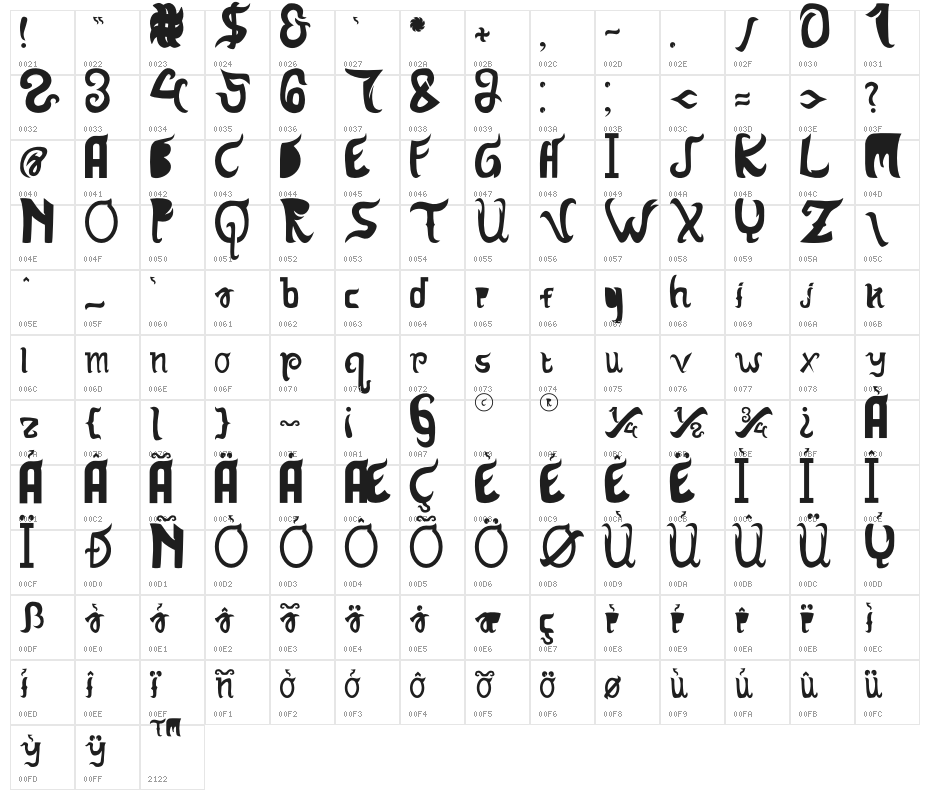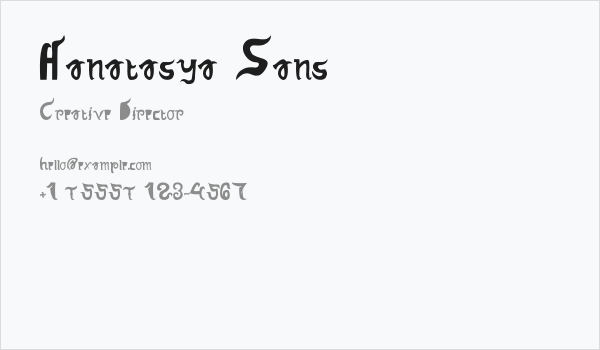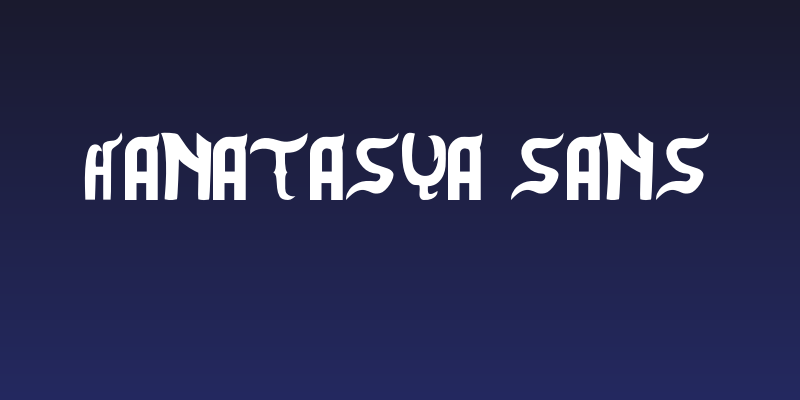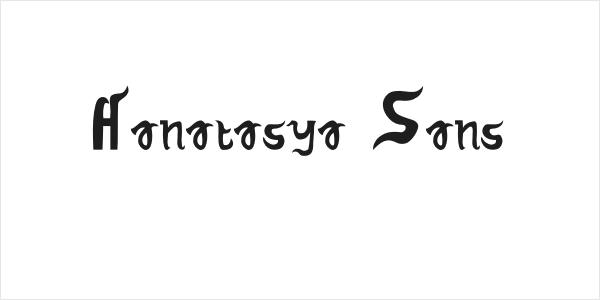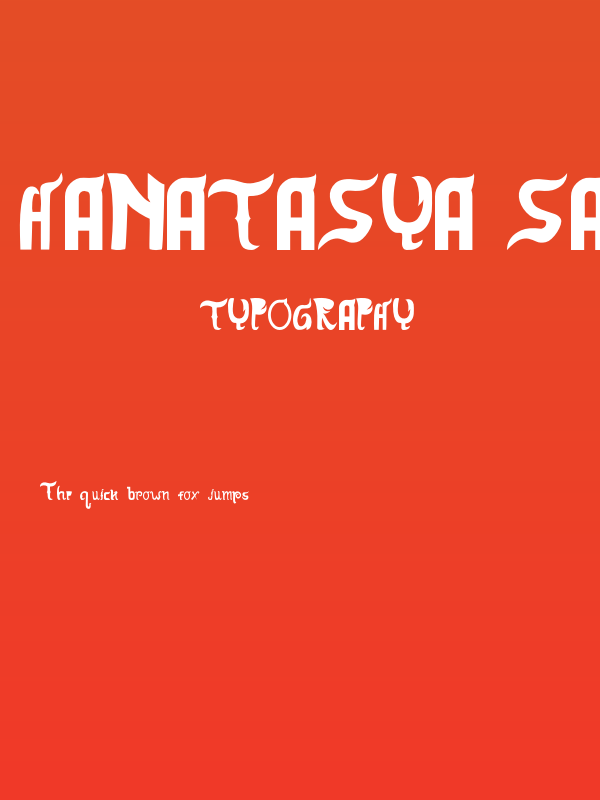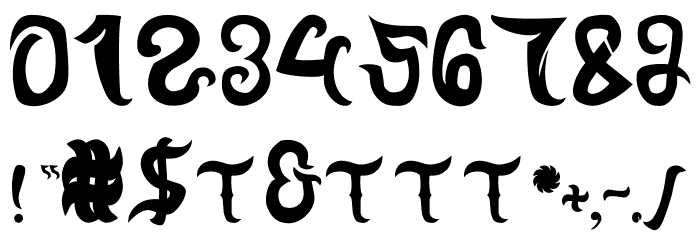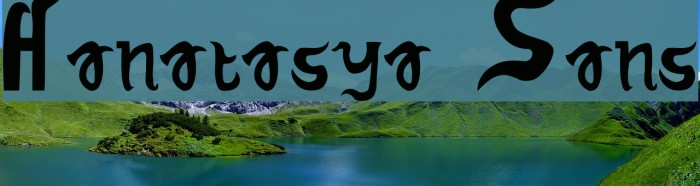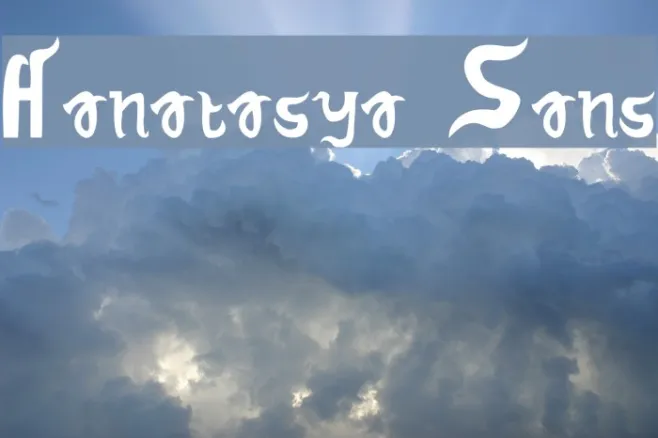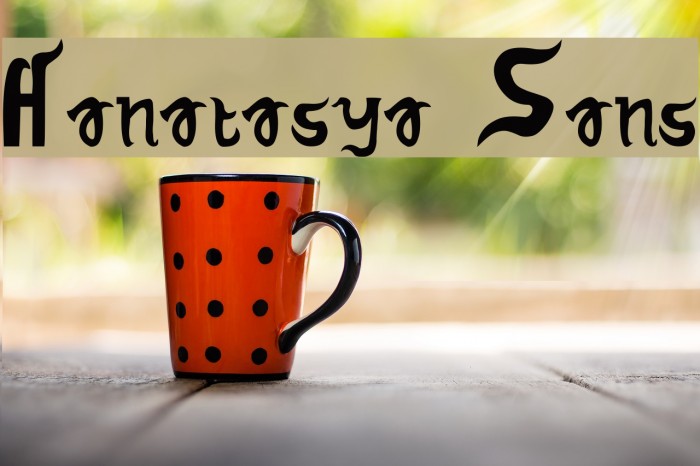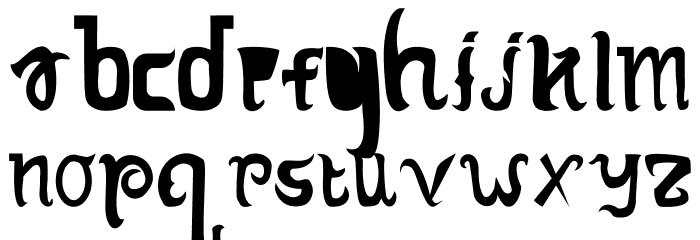
Hanatasya Sans Font
Hanatasya Sans Description
This font features a bold and artistic style with a unique blend of curves and sharp edges. The uppercase letters exhibit a strong presence with exaggerated serifs and varying stroke widths, creating a dynamic and eye-catching appearance. The lowercase letters maintain a playful yet sophisticated look, with distinctive loops and swashes that add character. Numbers and special characters follow the same bold and expressive design, making them stand out. The overall aesthetic is both modern and decorative, suitable for creative projects that require a touch of flair.